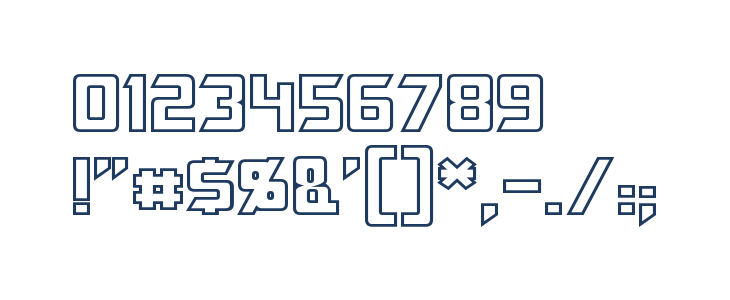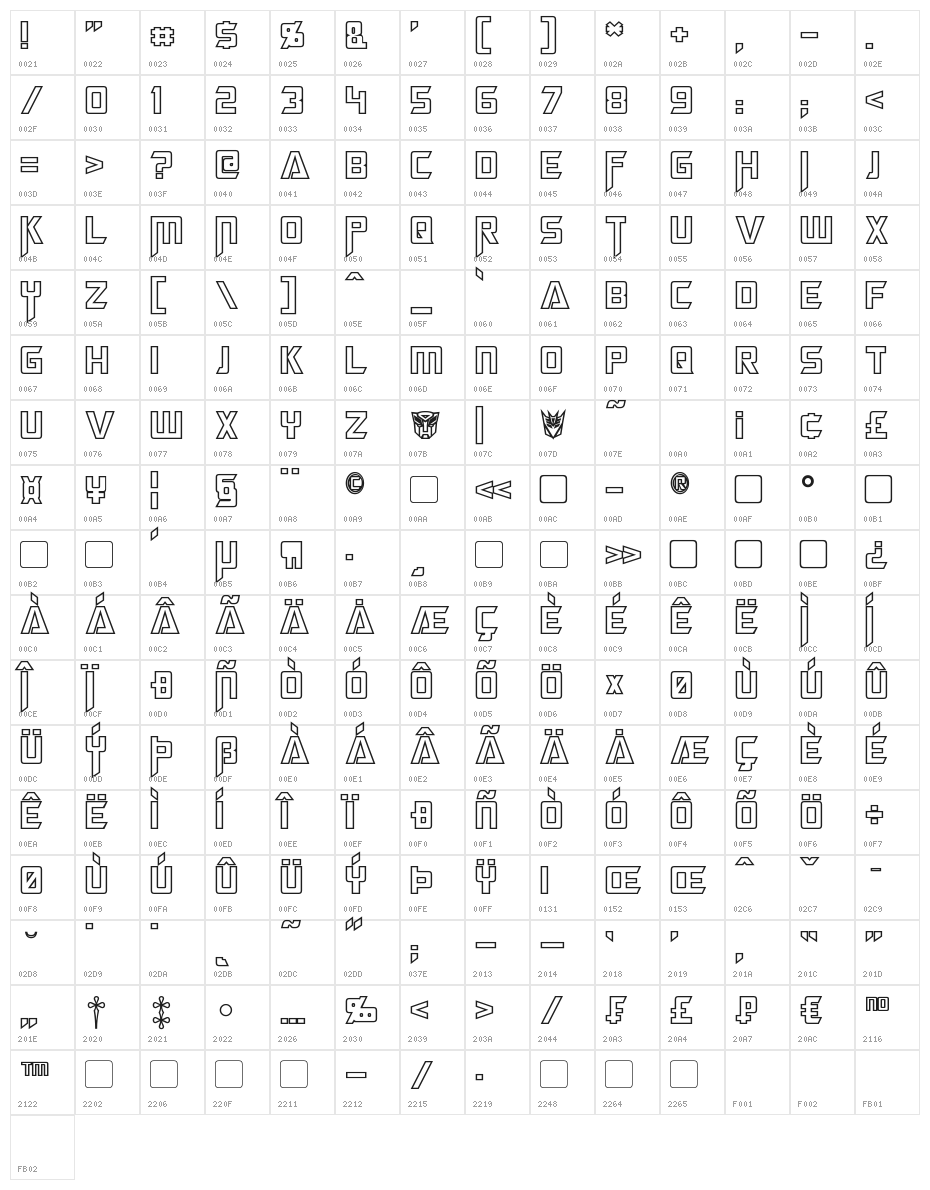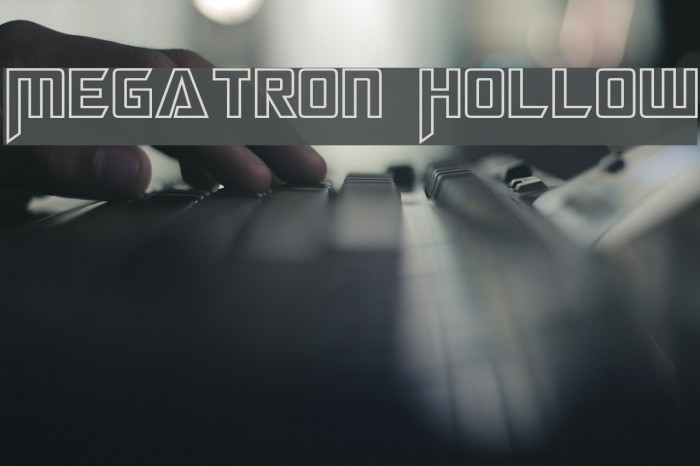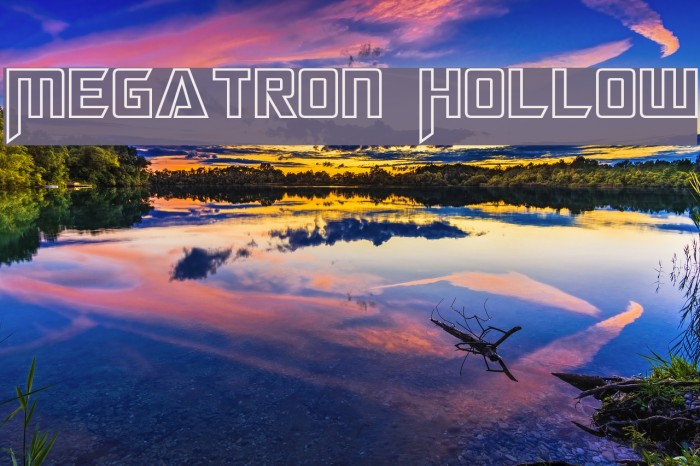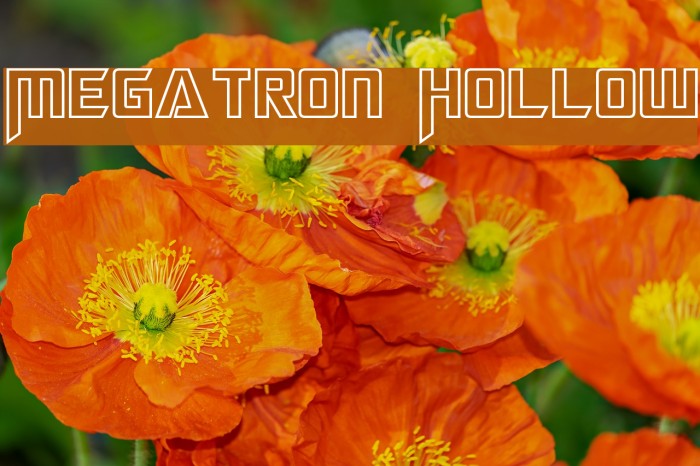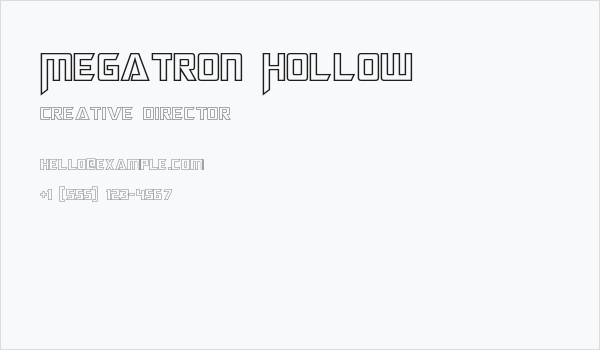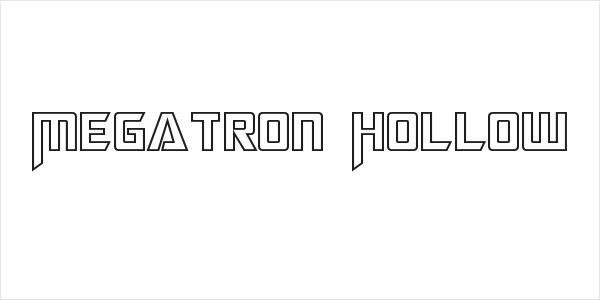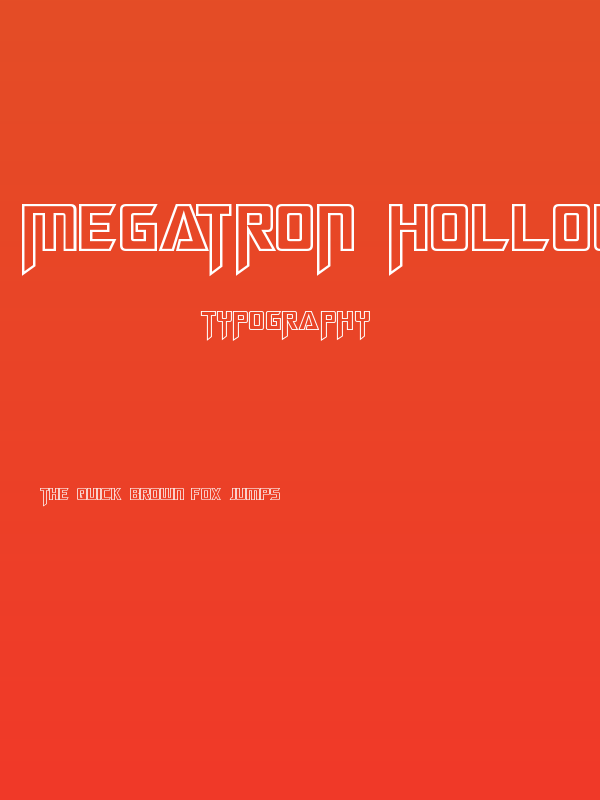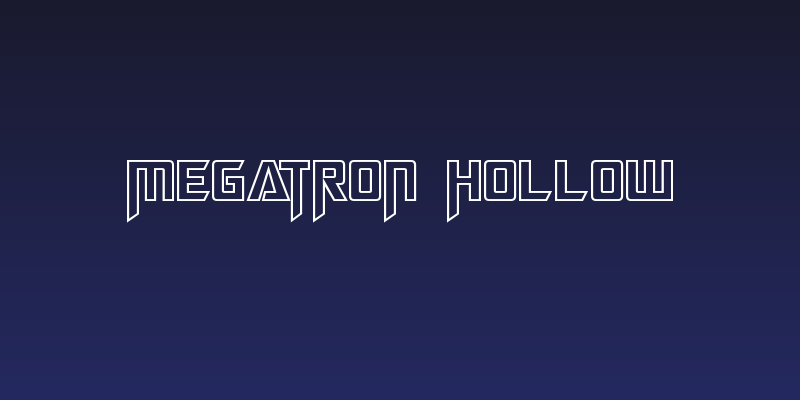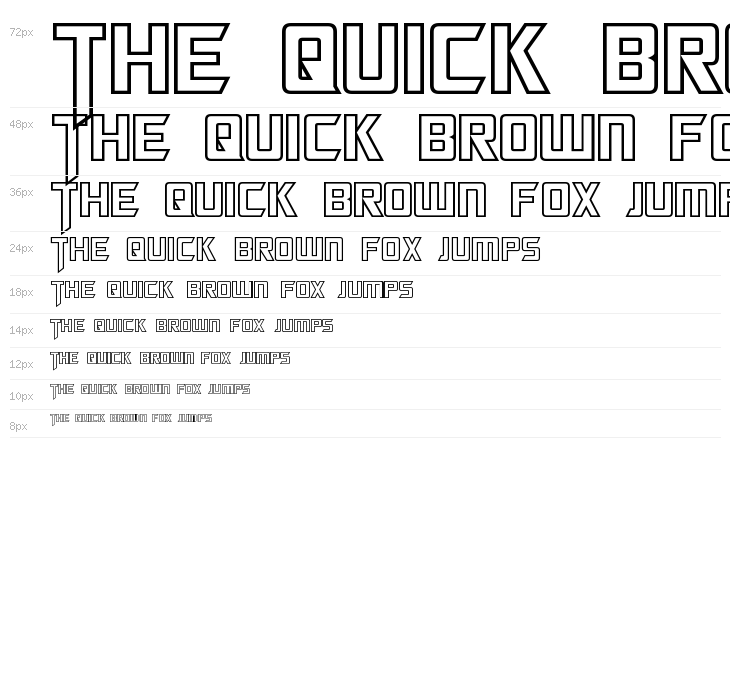
Megatron Hollow Font
Megatron Hollow Description
This font features a bold, geometric design with a hollow interior, giving it a futuristic and mechanical appearance. The angular shapes and sharp edges create a dynamic and striking visual impact, making it ideal for attention-grabbing headlines or logos. The uppercase letters are particularly prominent, with a consistent height and width that contribute to a uniform and cohesive look. The numerals and special characters maintain the same stylistic elements, ensuring versatility across different design needs. The overall aesthetic is modern and edgy, suitable for projects that require a bold statement.
| Proposed Projects | Ideal for sci-fi themed posters, video game titles, tech company logos, and modern branding materials. |